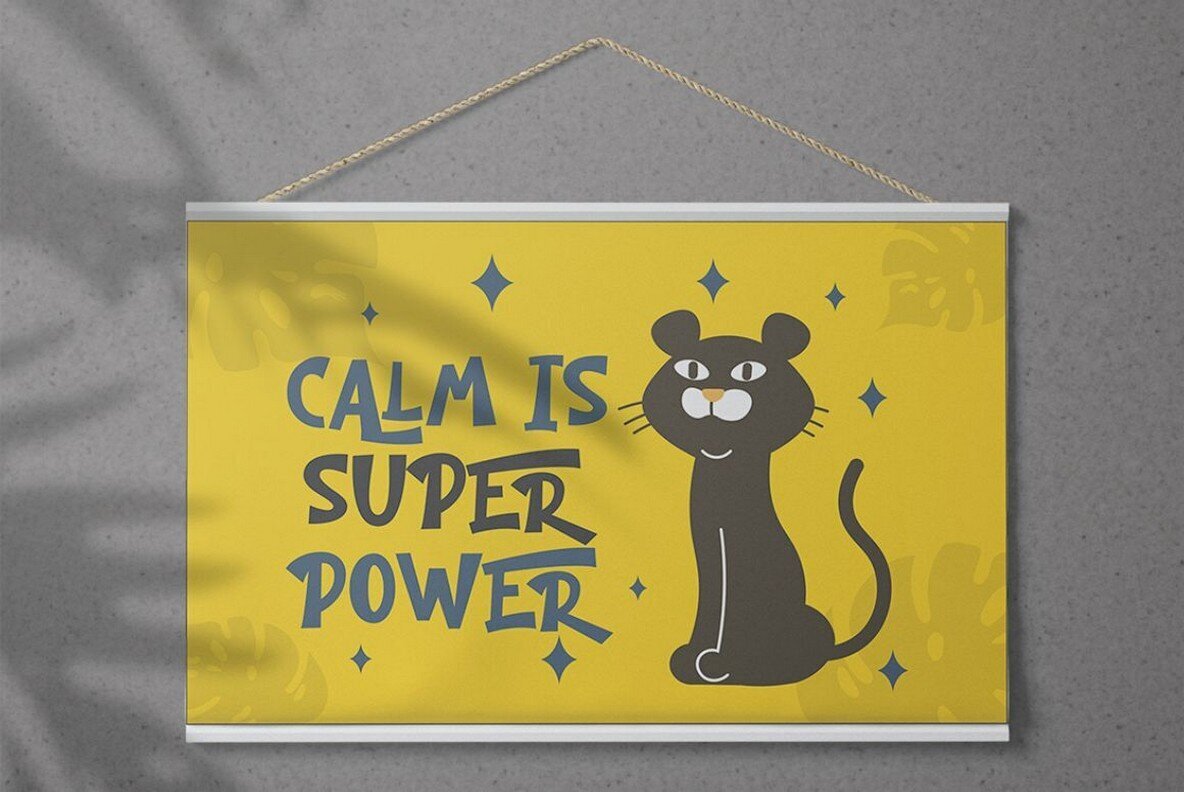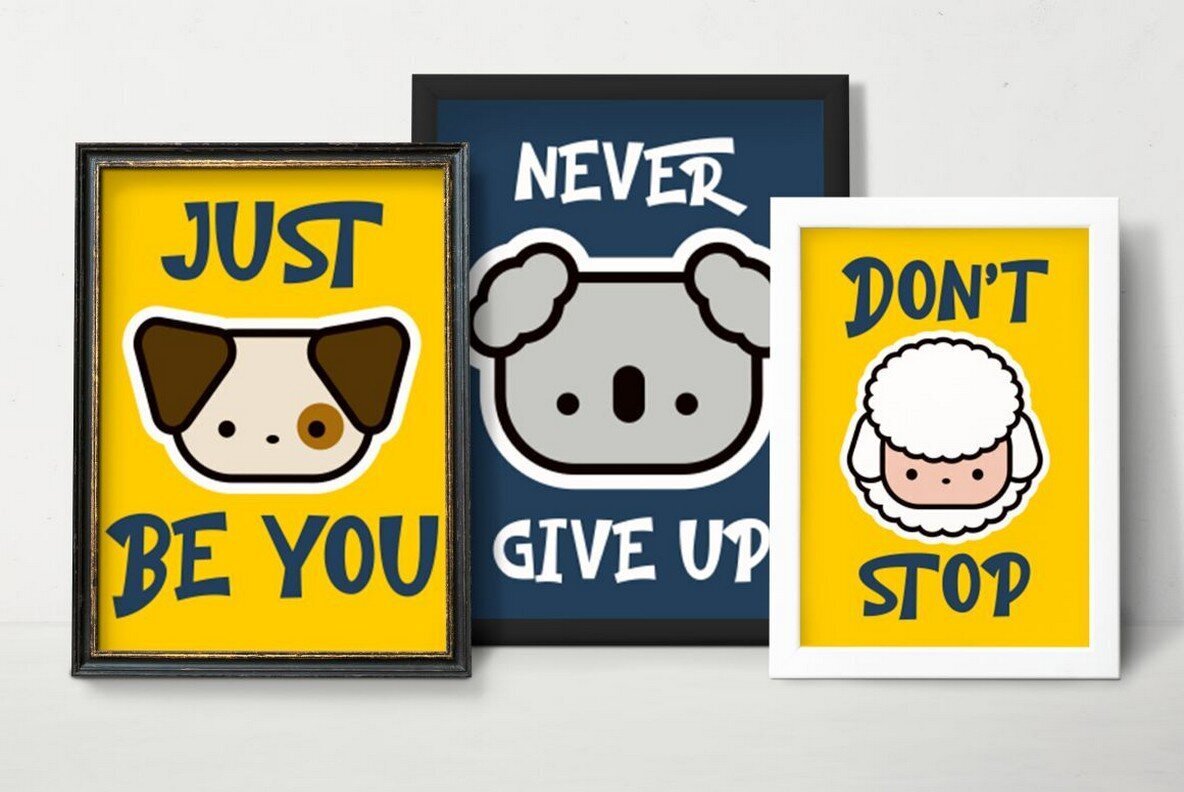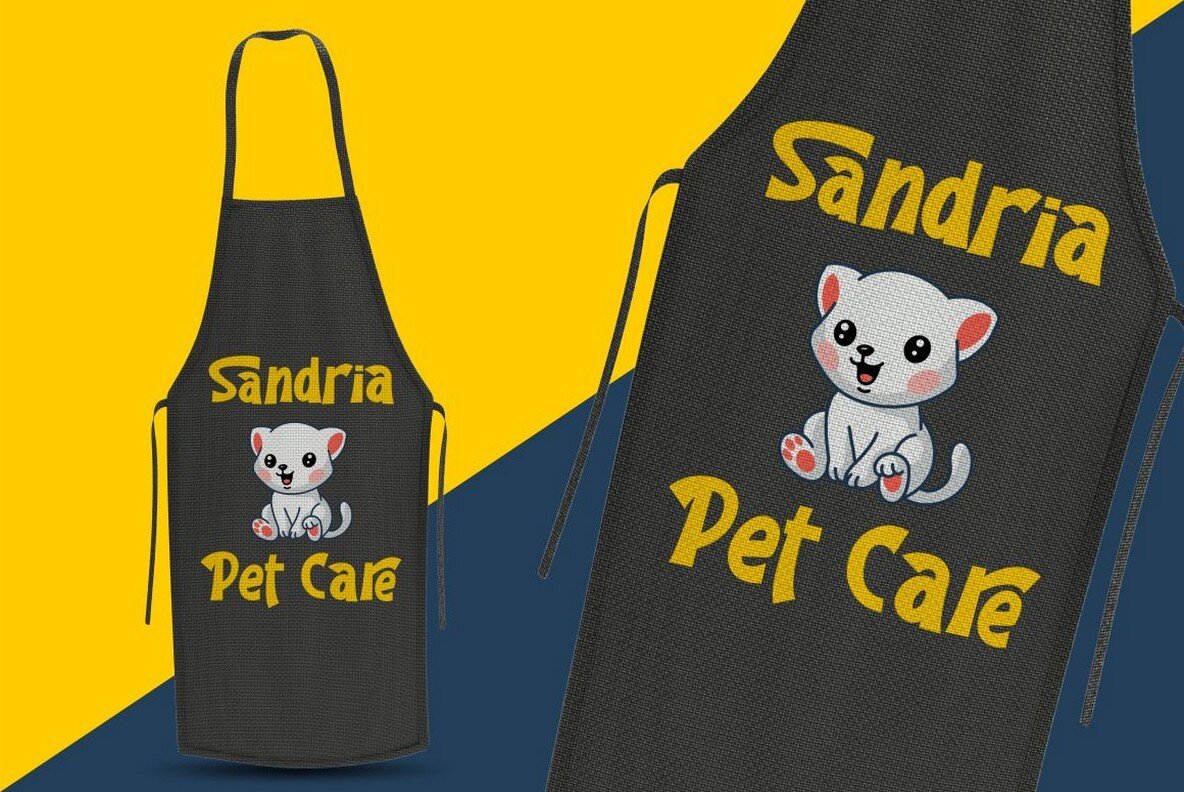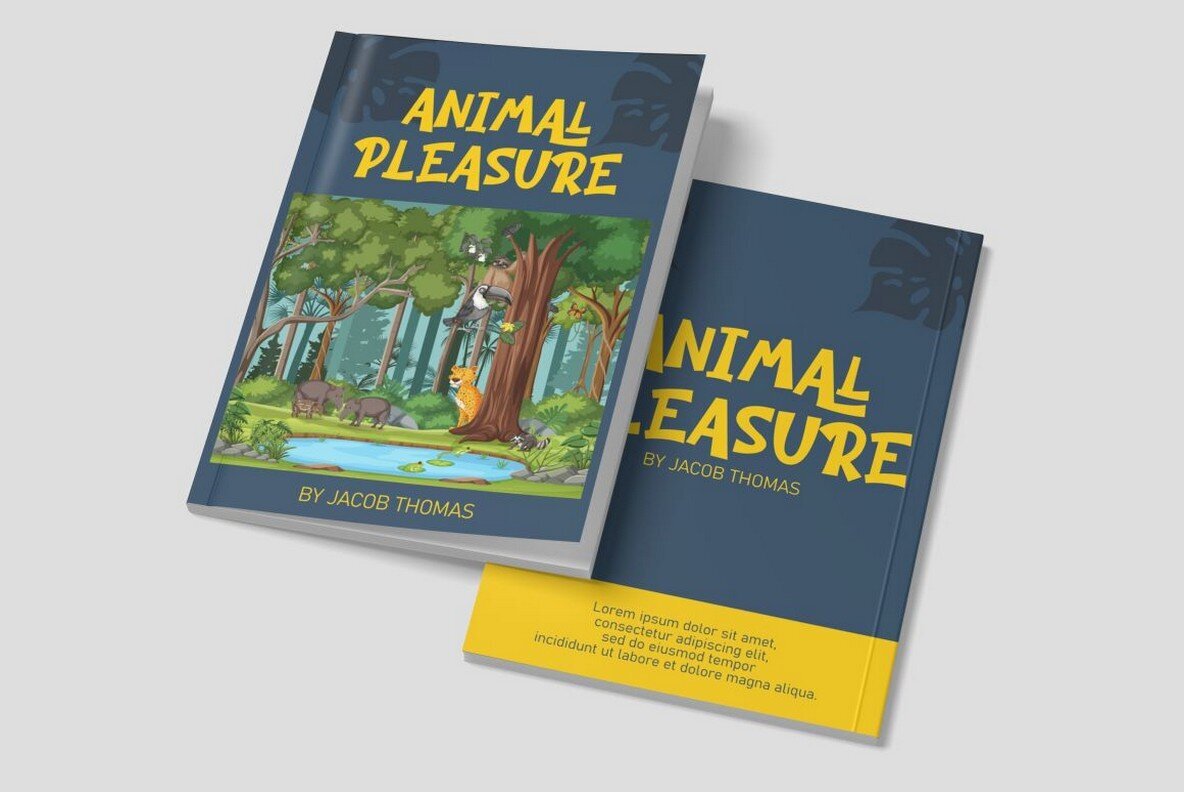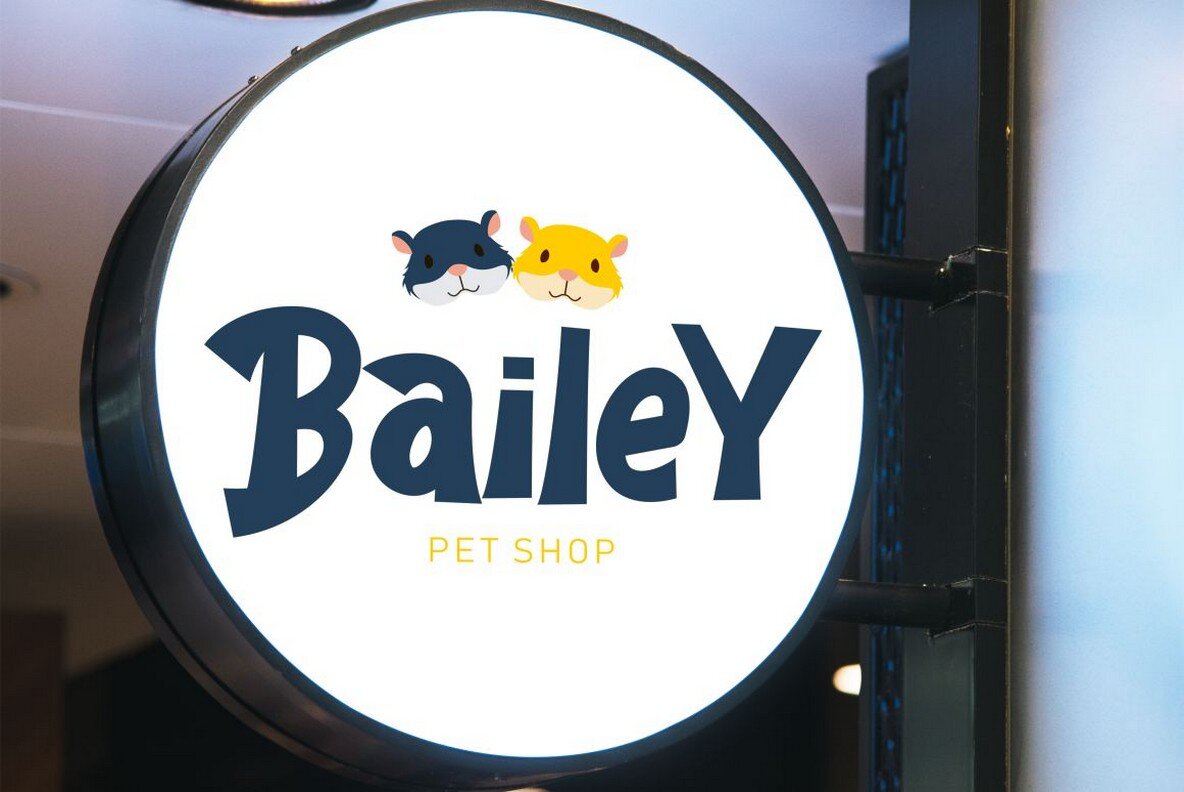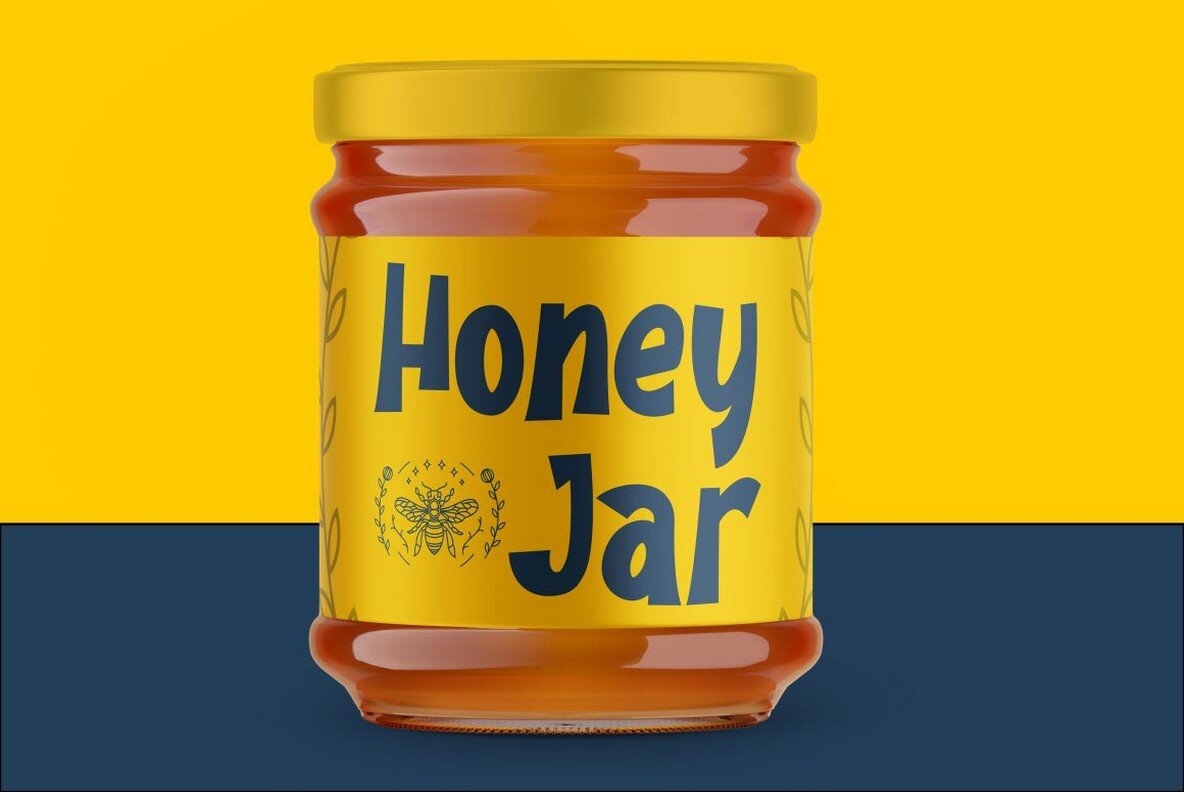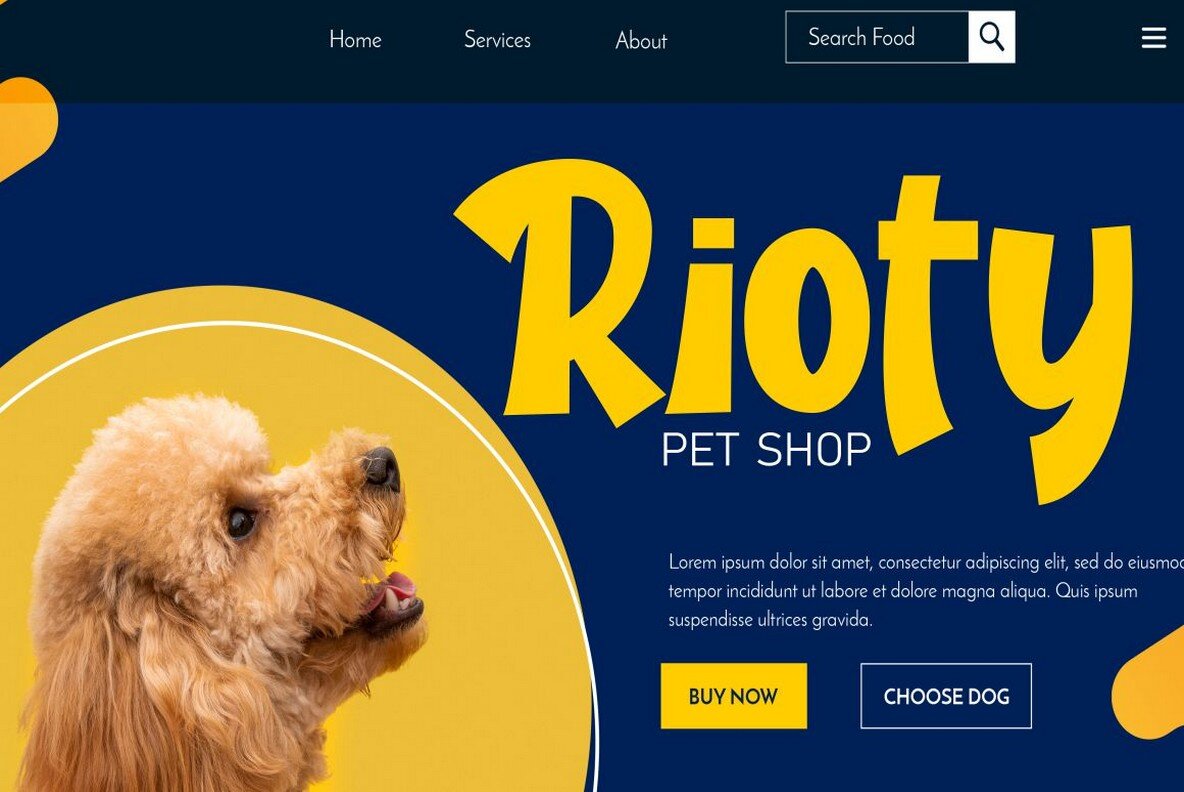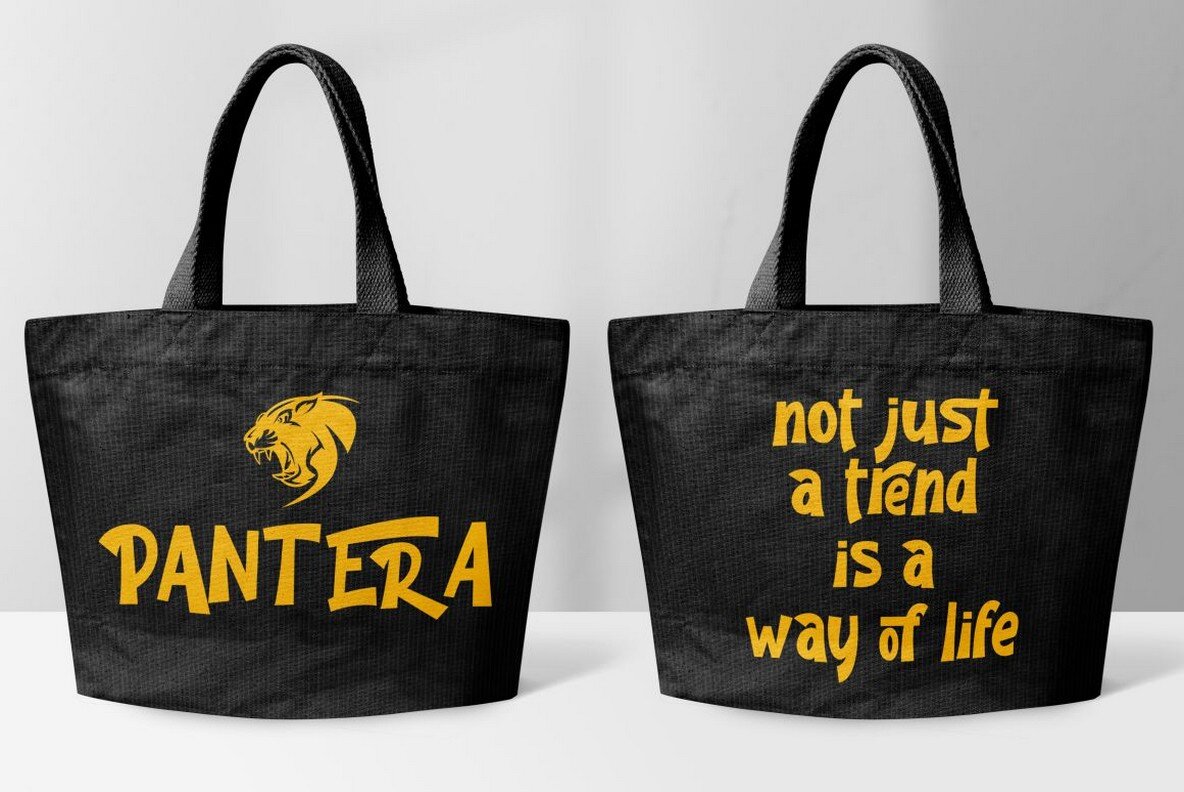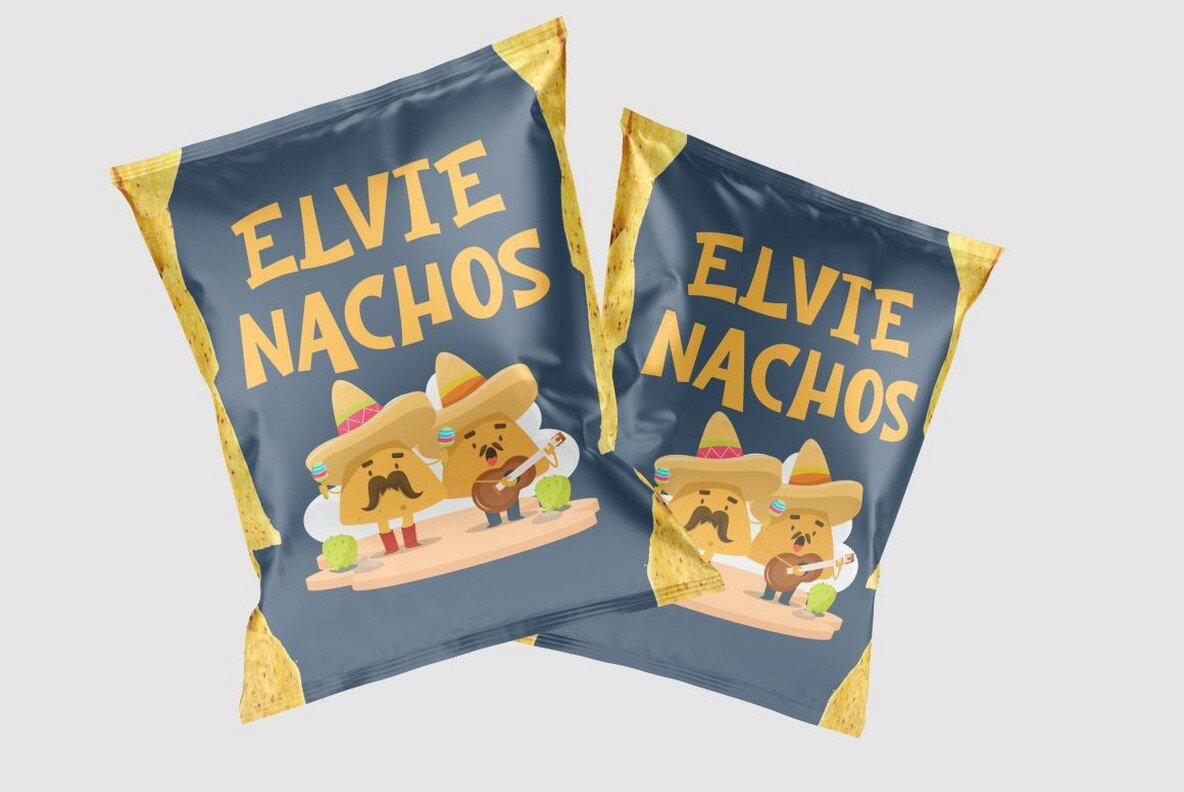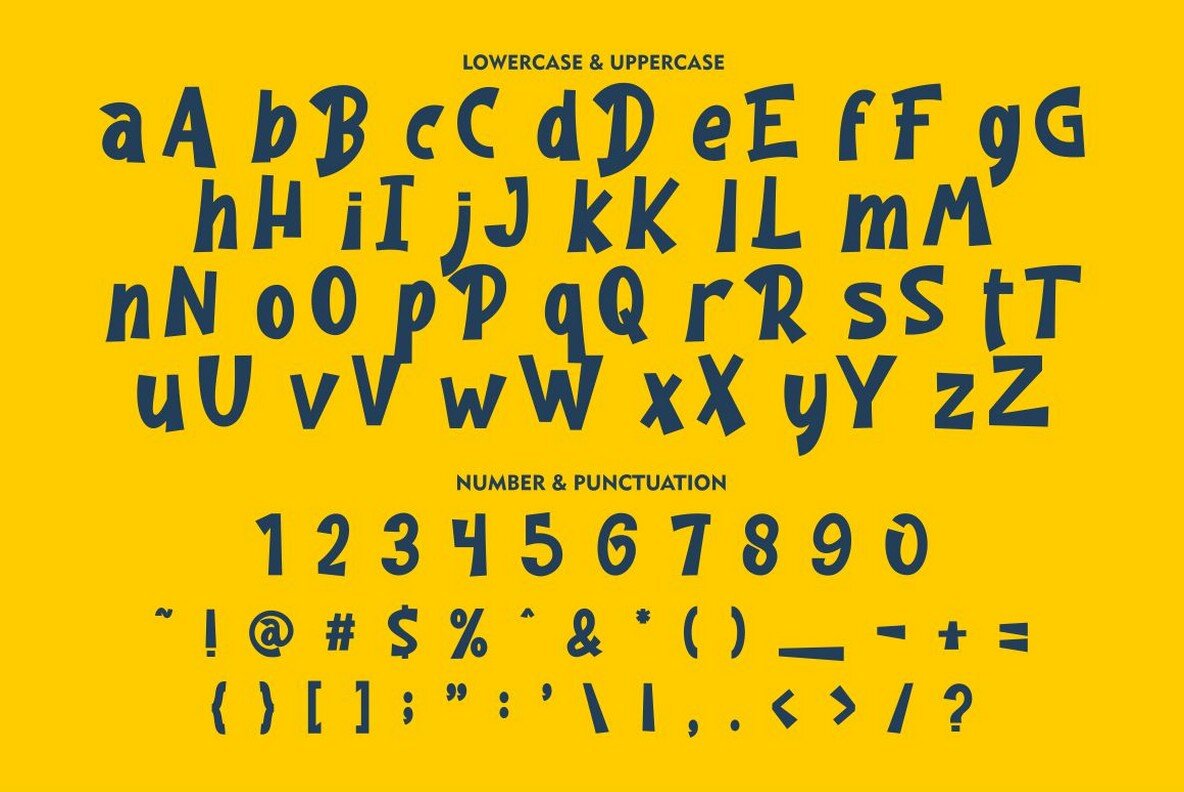
The Good Panther Font
The Good Panther
Tailor Craft stands out with its bold, quirky charm, making it an ideal choice for projects bursting with creativity. Featuring fun and trendy characters, this typeface's playful nature is perfect for applications related to children. Whether you're crafting storybooks, illustrations, comic books, or playful branding, Tailor Craft adds a whimsical touch. The font is compatible with Open Type savvy programs such as Adobe Illustrator, Adobe InDesign, Adobe Photoshop, Corel Draw X, and Microsoft Word, providing flexibility for designers of all expertise levels.Tailor Craft: Bold Display Font for Playful Designs